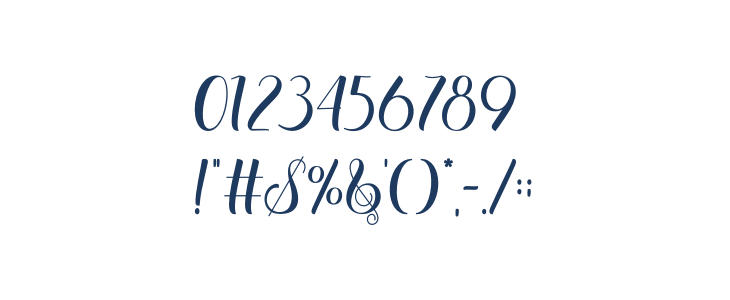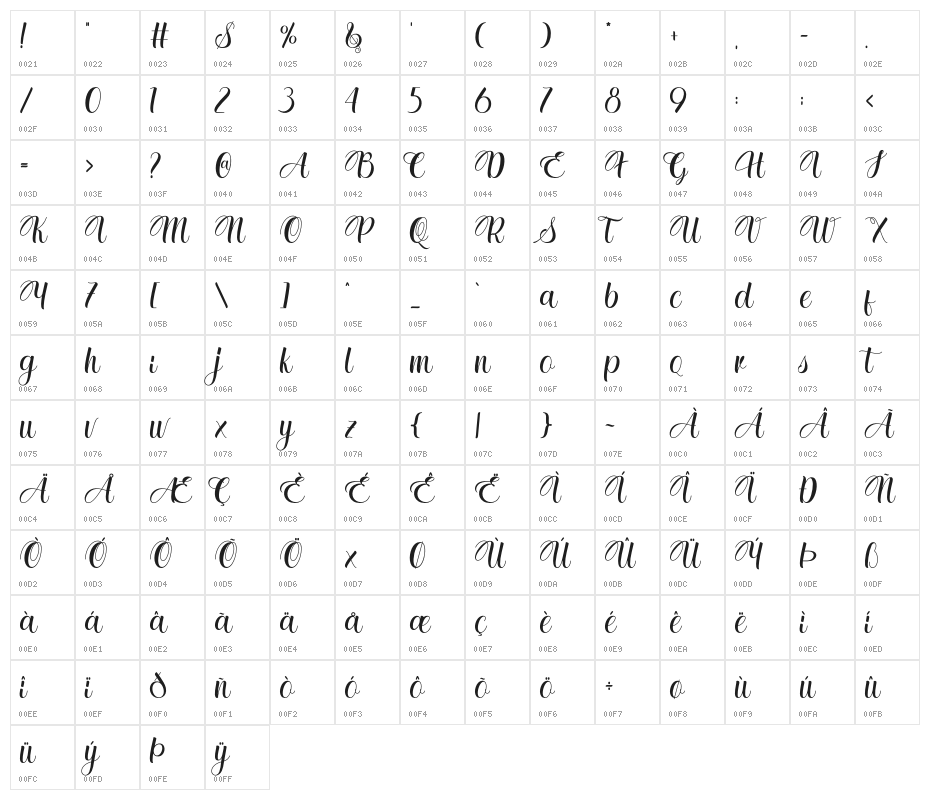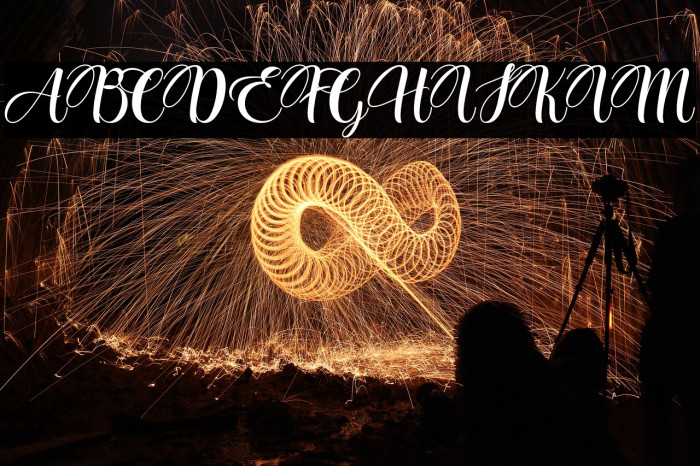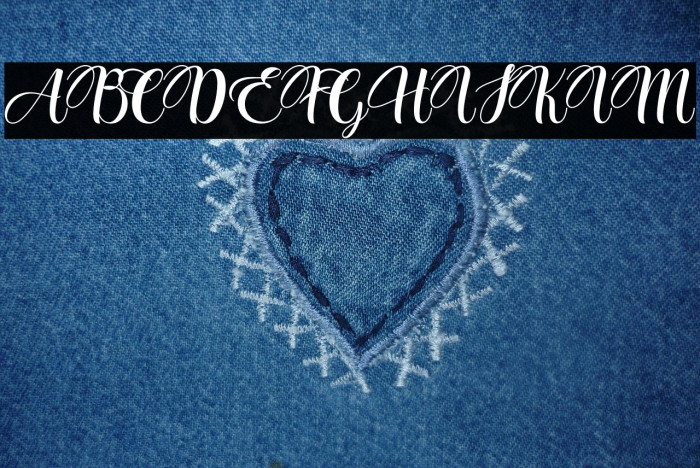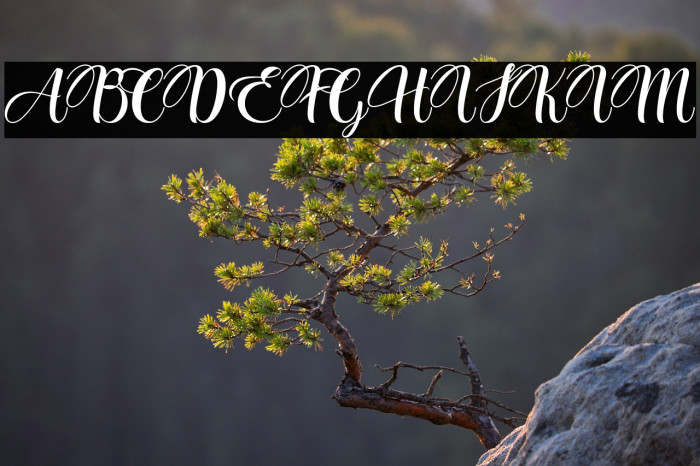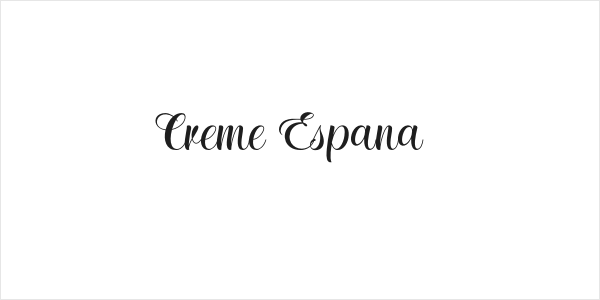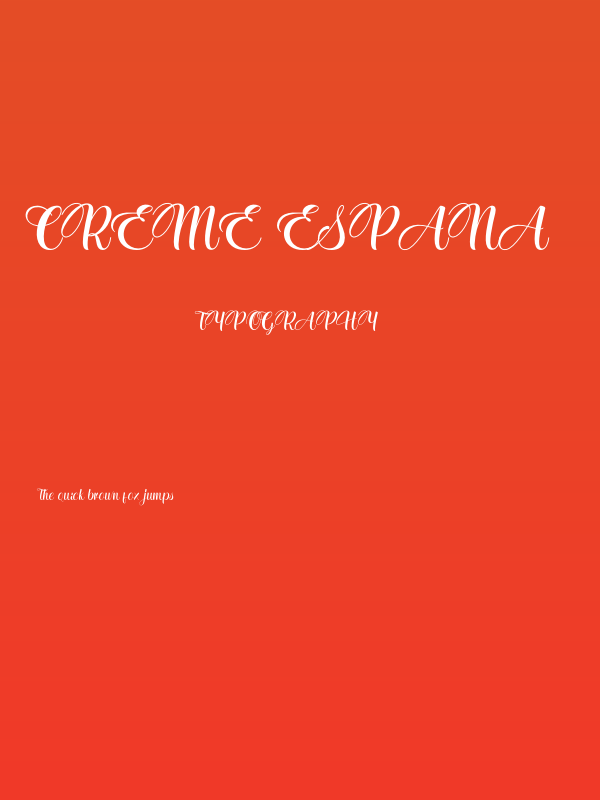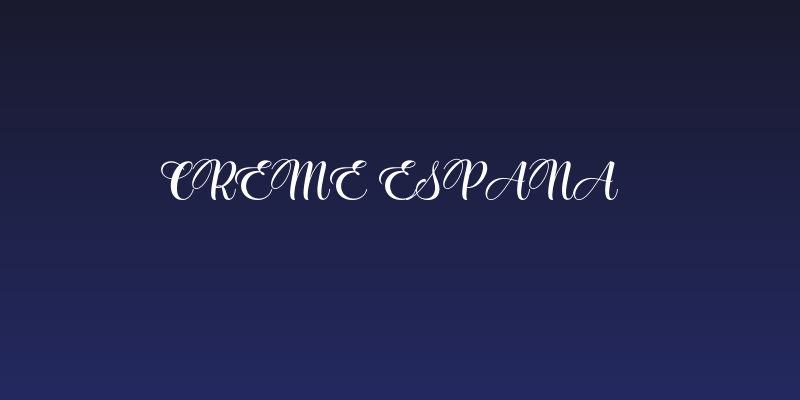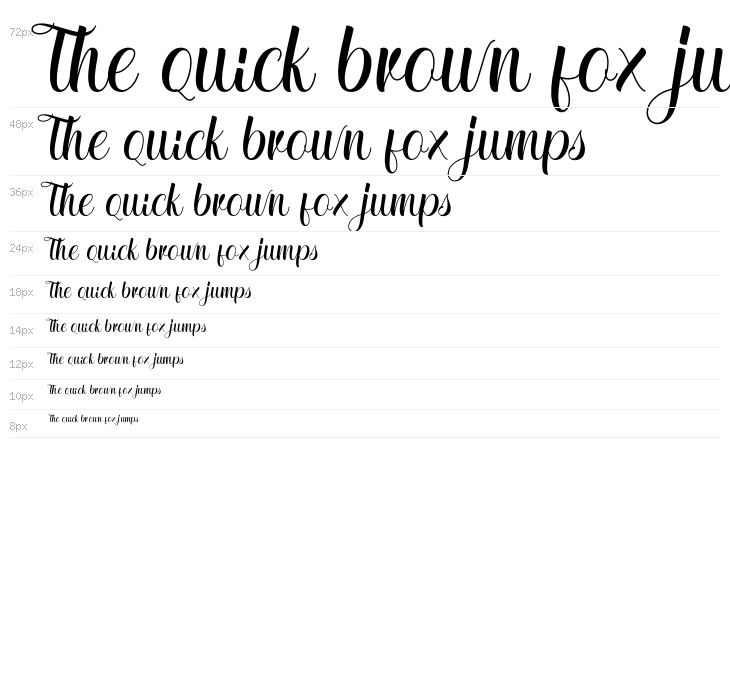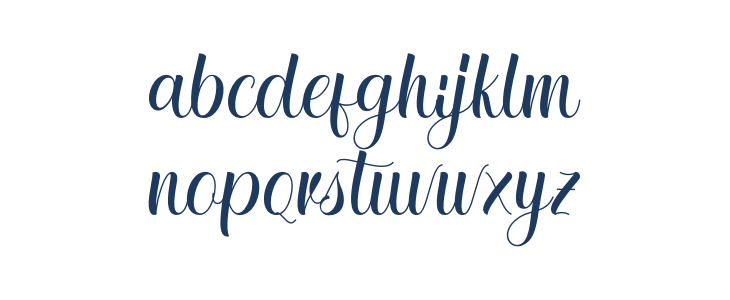
Creme Espana Font
Creme Espana Description
This elegant script font features flowing, interconnected letters that exude a sense of sophistication and grace. The uppercase letters are particularly ornate, with sweeping curves and flourishes that add a touch of drama. The lowercase letters maintain a consistent style, with smooth, rounded forms that enhance readability while retaining a decorative flair. The numerals and special characters are designed to complement the overall aesthetic, ensuring a cohesive look across all text elements. This font's high contrast between thick and thin strokes adds to its visual appeal, making it suitable for a variety of creative applications.
| Overall Style | Elegant, Decorative |
| Use Case | Headlines, Invitations, Branding |
| Proposed Projects | Ideal for wedding invitations, luxury branding, elegant packaging, and decorative headlines. |